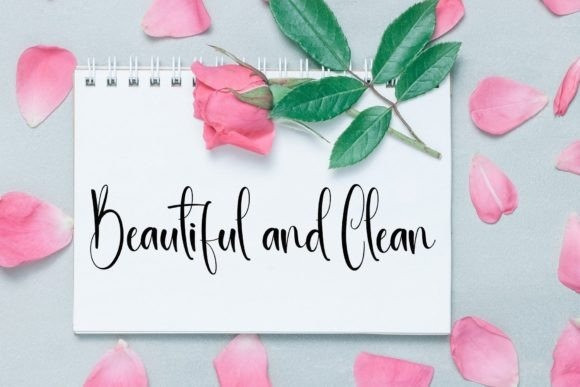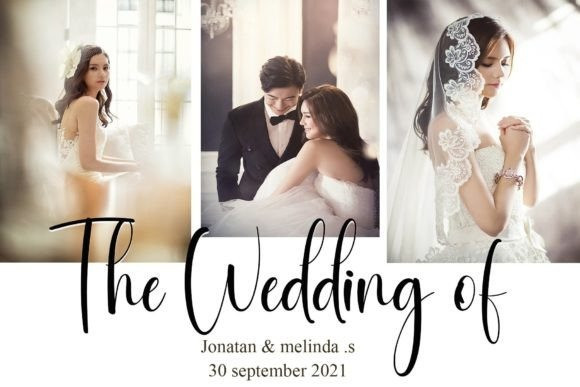
Blankets Font
Blankets Font is an elegant handwriting font that comes with a very beautiful character change, a kind of classic decorative script with a modern touch, designed with high detail to present an elegant style.